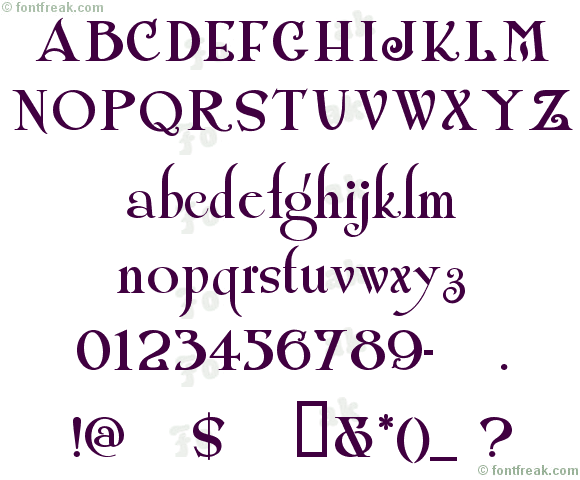
ShangriLaNF
Shangri La NF
About ShangriLaNF
The ShangriLaNF font, designed by Nick Curtis, is a captivating display typeface that falls into the decorative category. This font showcases a unique fusion of elegance and whimsy, characterized by its fluid strokes and artistic flair. The stroke weight varies subtly, lending a sense of dynamism to the lettering, while the overall contrast enhances its visual impact. The spacing is thoughtfully designed, ensuring readability without sacrificing style, making it a versatile choice for various creative projects.
ShangriLaNF is particularly well-suited for wedding invitations, where its romantic and artistic nature can help convey a sense of elegance and celebration. It's also an excellent choice for movie posters, where the font's dramatic flair can capture attention and set the tone for the film. Additionally, restaurant menus can benefit from its decorative style, as it adds a touch of sophistication that complements gourmet dining experiences. Graphic designers can leverage this font for branding projects that require a distinctive identity, while content creators may find it perfect for social media graphics that need to stand out.